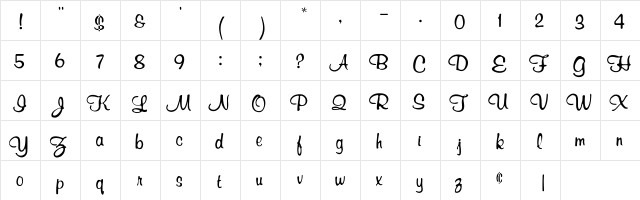
PCThomassMurray Regular
Design Context for PCThomassMurray Typeface
PCThomassMurray is a composed and adaptable typeface that performs quietly and consistently across a wide range of design contexts.